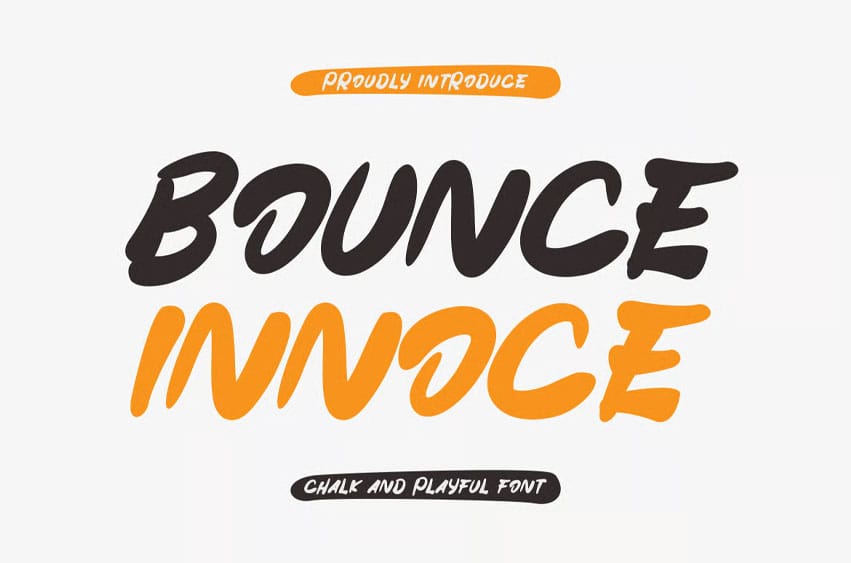
Bounce Innoce Font Is A Handmade Marker Font. Can Make It Easier To Convey The Message In Your Design. Font Is Suitable For Logo, Labels, Badge, Branding, Magazine, Poster, Title, Gigs, Covers And comic. Our Fonts Have Uppercase & Lowercase, numerals & Punctuation, and Opentype Features.
For Amazing Designs, You Can Mix With Other Fonts As A Complement.